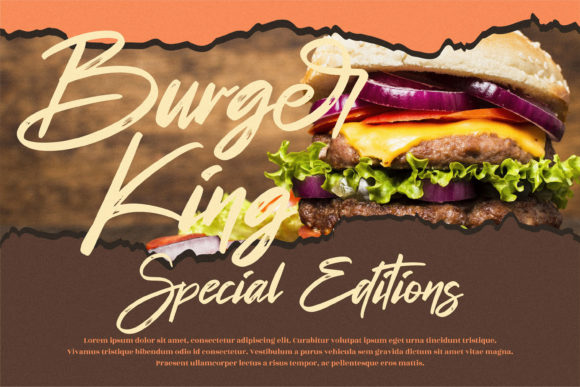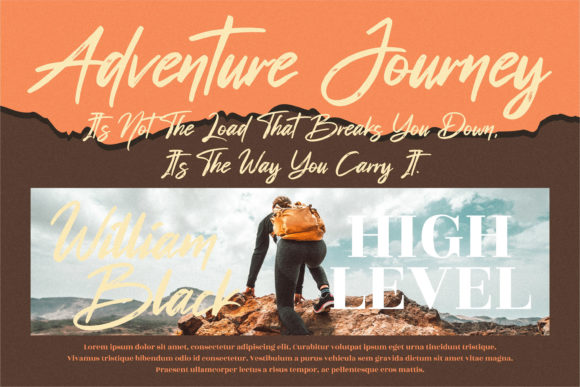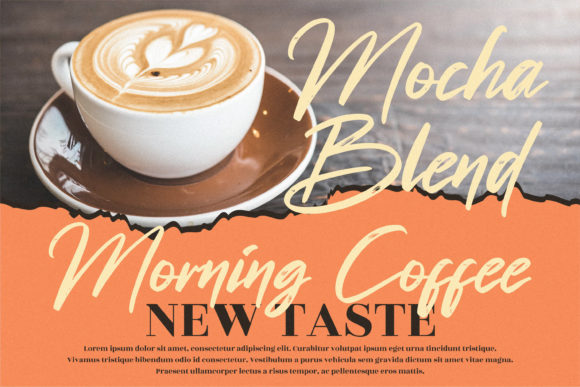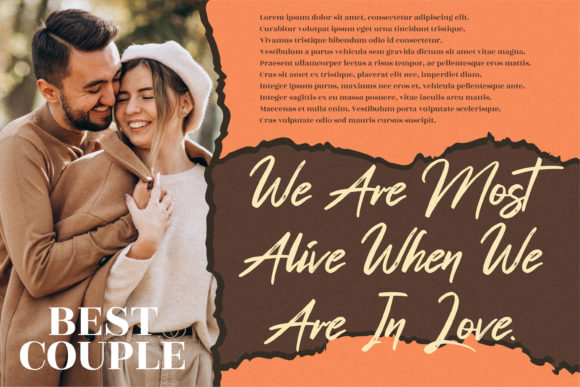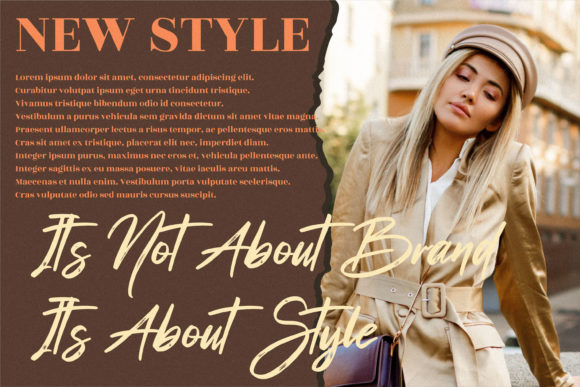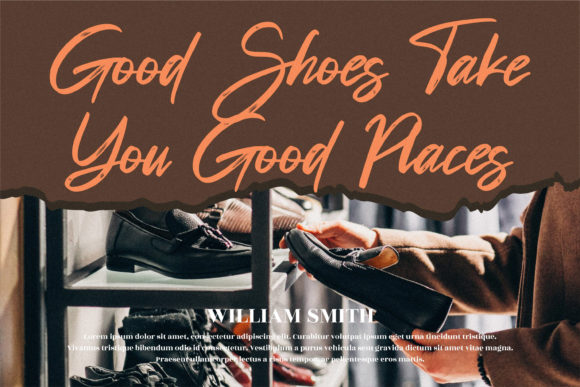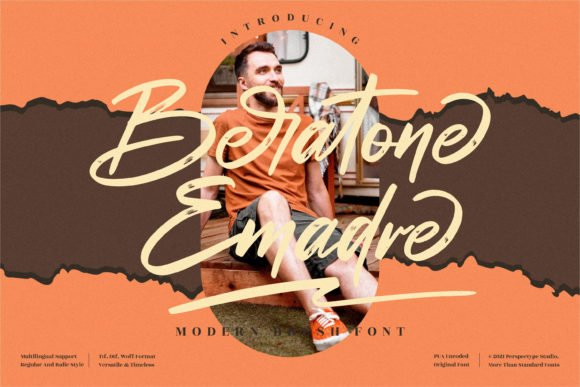
Discover the Perfect Blend of Casual Elegance: Beratone Emadre Font
As a designer, you know that the right font can elevate a project from ordinary to extraordinary. You’re scrolling through your favorite font library, and suddenly, you stumble upon the perfect combination of relaxed charm and sophistication. For many, that moment is when they discover the Beratone Emadre Font.
This beautiful script font is designed to add a touch of elegance to any project, from wedding invitations to signage and everything in between. Its casual, flowing style makes it perfect for creating a warm and inviting atmosphere. Whether you’re a seasoned designer or just starting out, the Beratone Emadre Font is an invaluable addition to your toolkit.
Beratone Emadre Font Key Features
• Unique Characteristics: Beratone Emadre Font features a unique blend of modern and traditional elements, with a distinctive rounded edge and elegant flair.
Review: Beratone Emadre Font
I recently had the chance to work with the Beratone Emadre font, and I must say it’s a unique addition to any design project. ✨ The font’s bold and elegant feel makes it perfect for creating a sense of sophistication and luxury. I particularly enjoyed using it for titles and headings, where its dramatic flair really shines.
Here are some of the things that work well with Beratone Emadre:
• ✨ Elegant and sophisticated feel
• ✨ Perfect for creating dramatic titles and headings
• ✨ Works well for luxury and high-end brands
However, I did encounter some limitations when using Beratone Emadre:
• ⚠️ Limited flexibility for body text – it can be difficult to read in smaller sizes
• ⚠️ Not ideal for casual or playful designs
• ⚠️ Can be overwhelming if used too extensively
Overall, I think Beratone Emadre is a great choice for designers who want to add a touch of luxury and sophistication to their projects. While it may not be suitable for every design, it’s definitely a great addition to any font library.
For optimal results, use Beratone Emadre Font in titles, headings, and body text for a unique and elegant look.
• Wedding invitations and stationery
• Business cards and marketing materials
• Book covers and interior design
Alternatives to Beratone Emadre Font
Playfair Display is a high-end serif font that is perfect for luxury brands, magazines, and high-end publications. It features elegant and luxurious letterforms that add a touch of sophistication to any design.
Comparison: While Beratone Emadre Font has a more modern and geometric feel, Playfair Display Font has a classic and elegant feel that is perfect for luxury brands and high-end publications.
Great Vibes is a modern script font that is perfect for creating a relaxed and friendly atmosphere in designs. It features a mix of elegant and casual letterforms that add a touch of personality to any design.
Comparison: While Beratone Emadre Font has a more geometric and modern feel, Great Vibes Font has a more organic and handwritten feel that is perfect for creating a relaxed and friendly atmosphere in designs.
Pacifico is a beautiful and elegant script font that is perfect for creating a warm and inviting atmosphere in designs. It features a mix of modern and classic letterforms that add a touch of sophistication to any design.
Comparison: While Beratone Emadre Font has a more geometric and modern feel, Pacifico Font has a more organic and handwritten feel that is perfect for creating a warm and inviting atmosphere in designs.